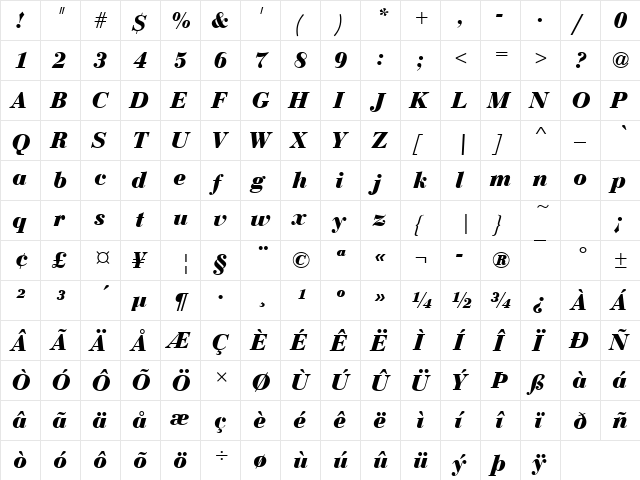
BauerBodT Bold Italic Font Preview
BauerBodT Bold Italic
BauerBodT Bold Italic Font Details
Design Context for BauerBodT Typeface
BauerBodT offers clean, dependable letterforms without strong stylistic allegiance, making it a practical choice for designers who need flexibility. The slanted form adds forward momentum and visual energy. Its bold stroke weight gives it real presence on the page.